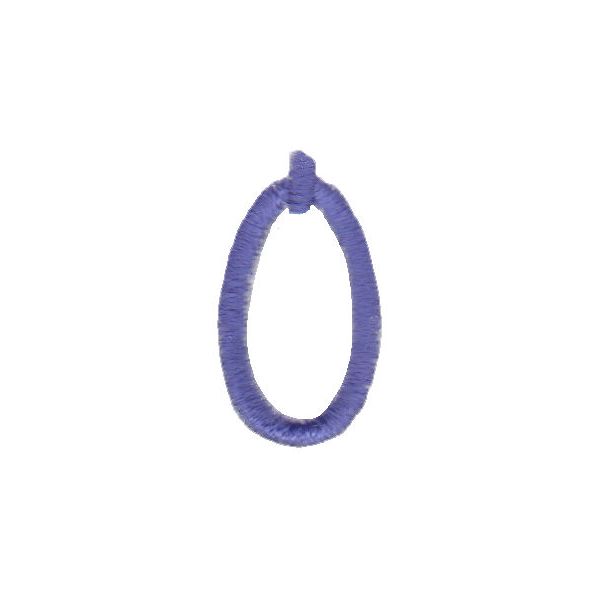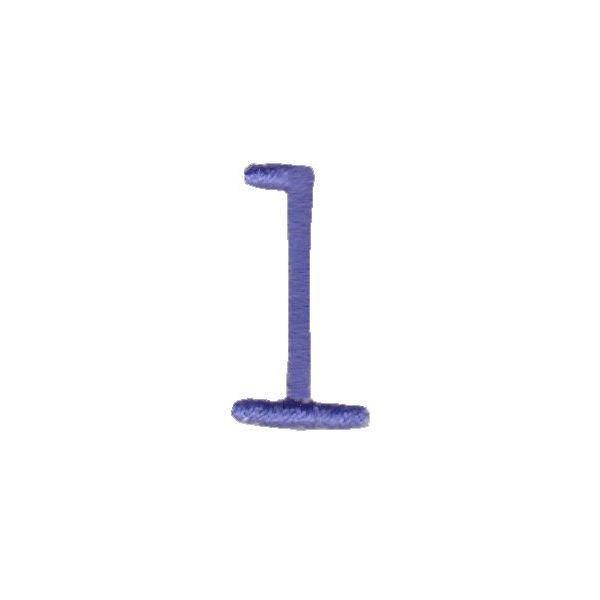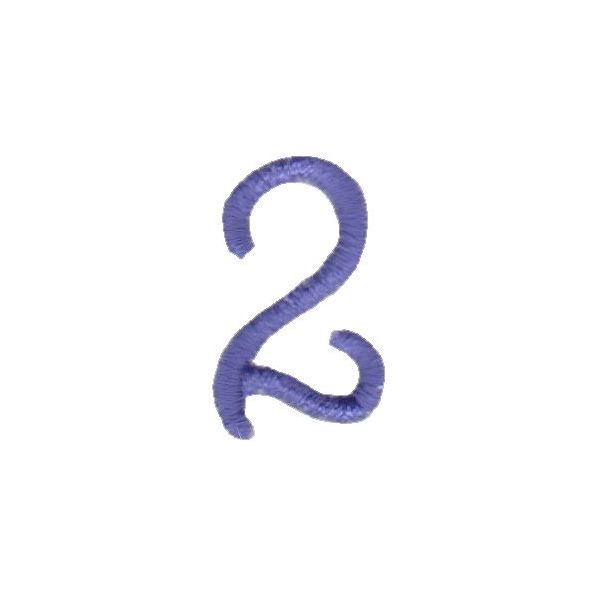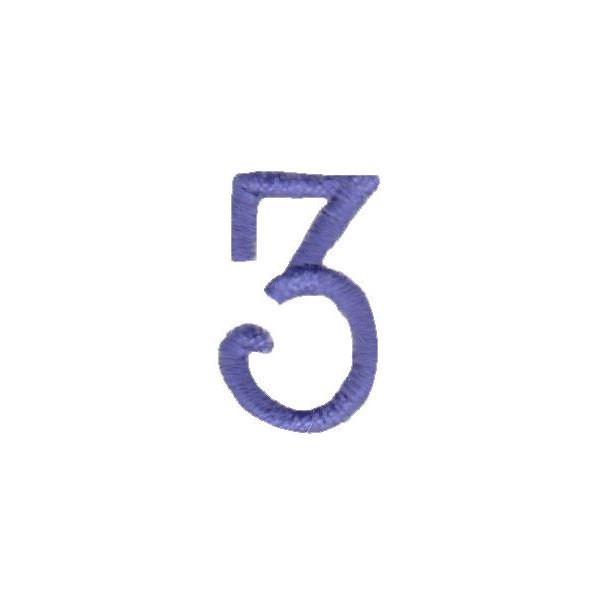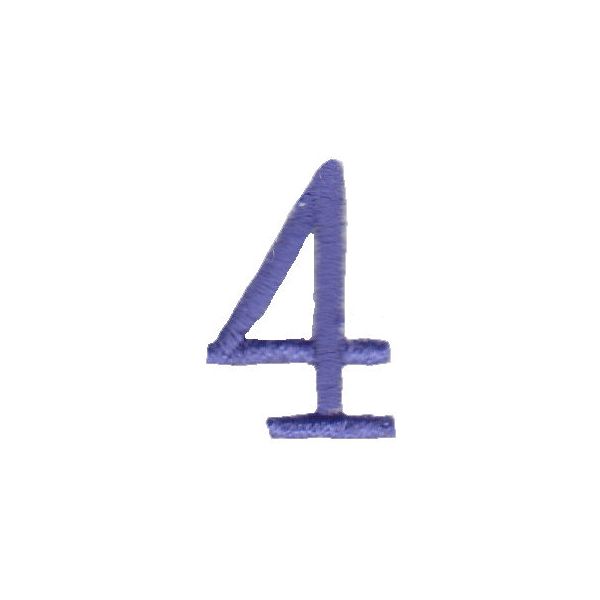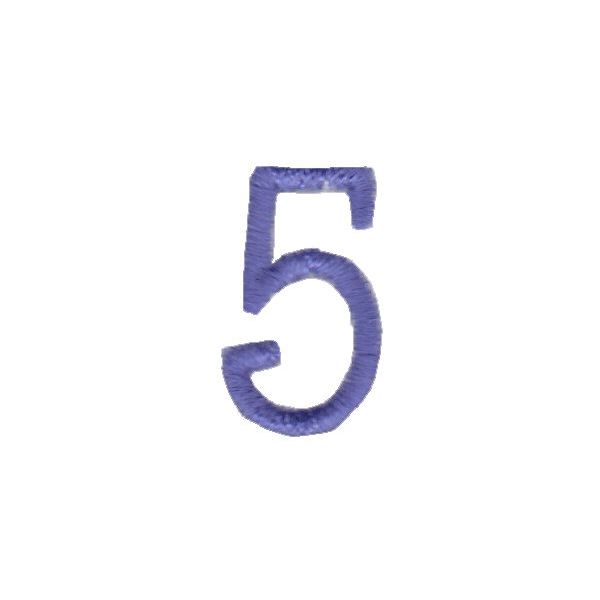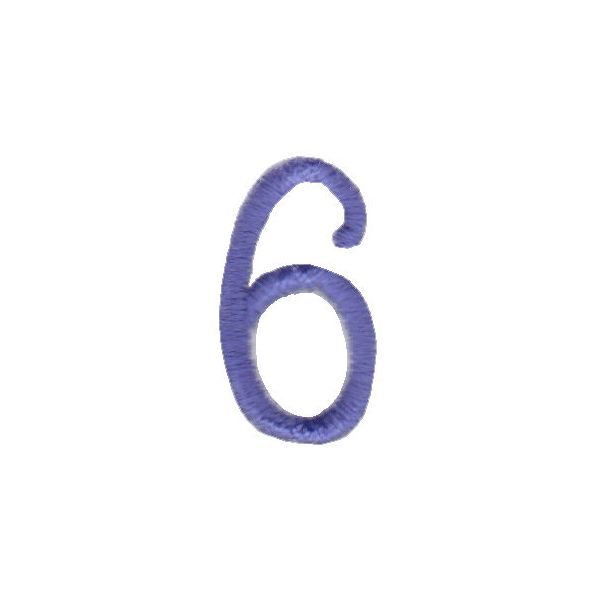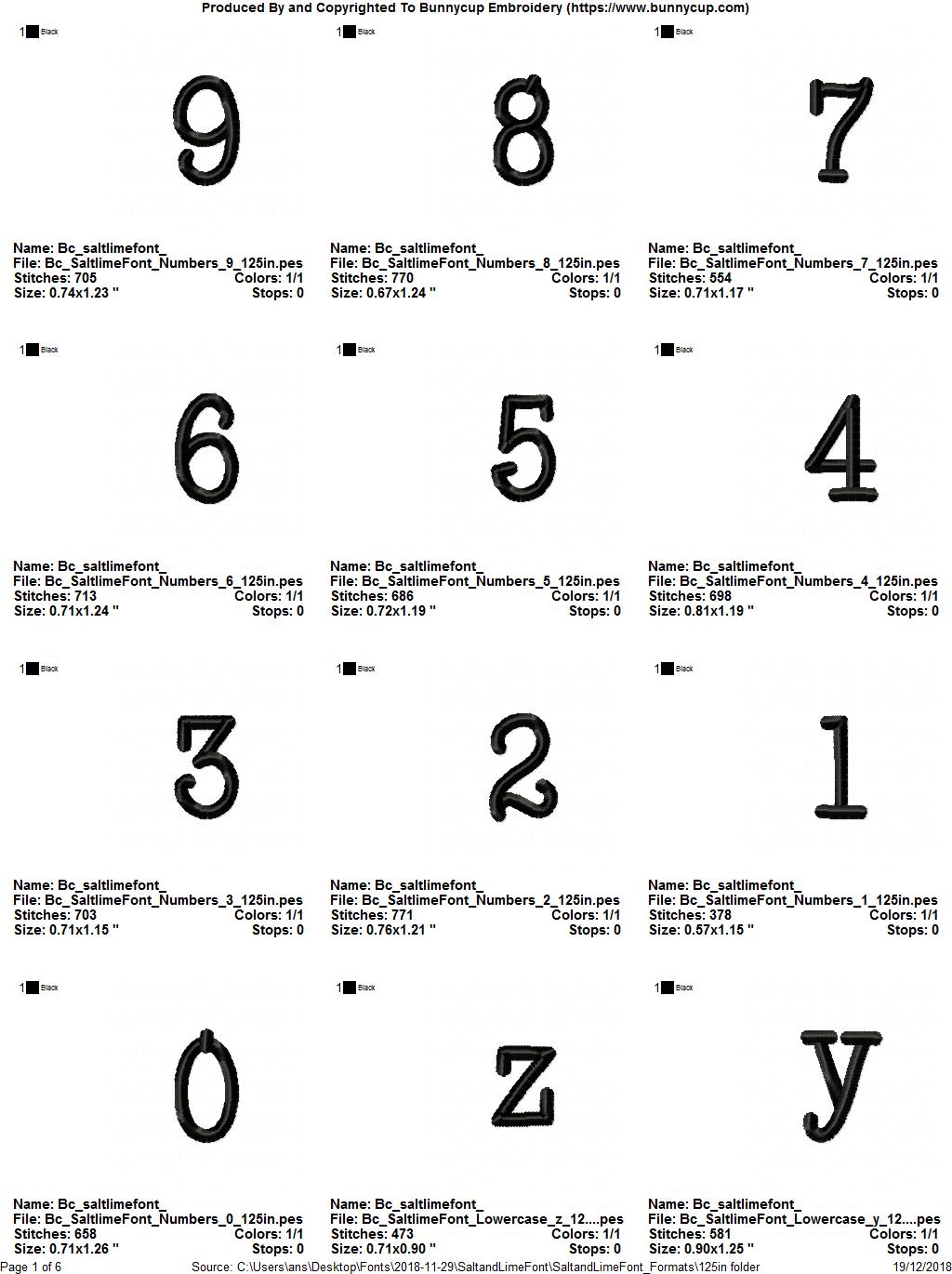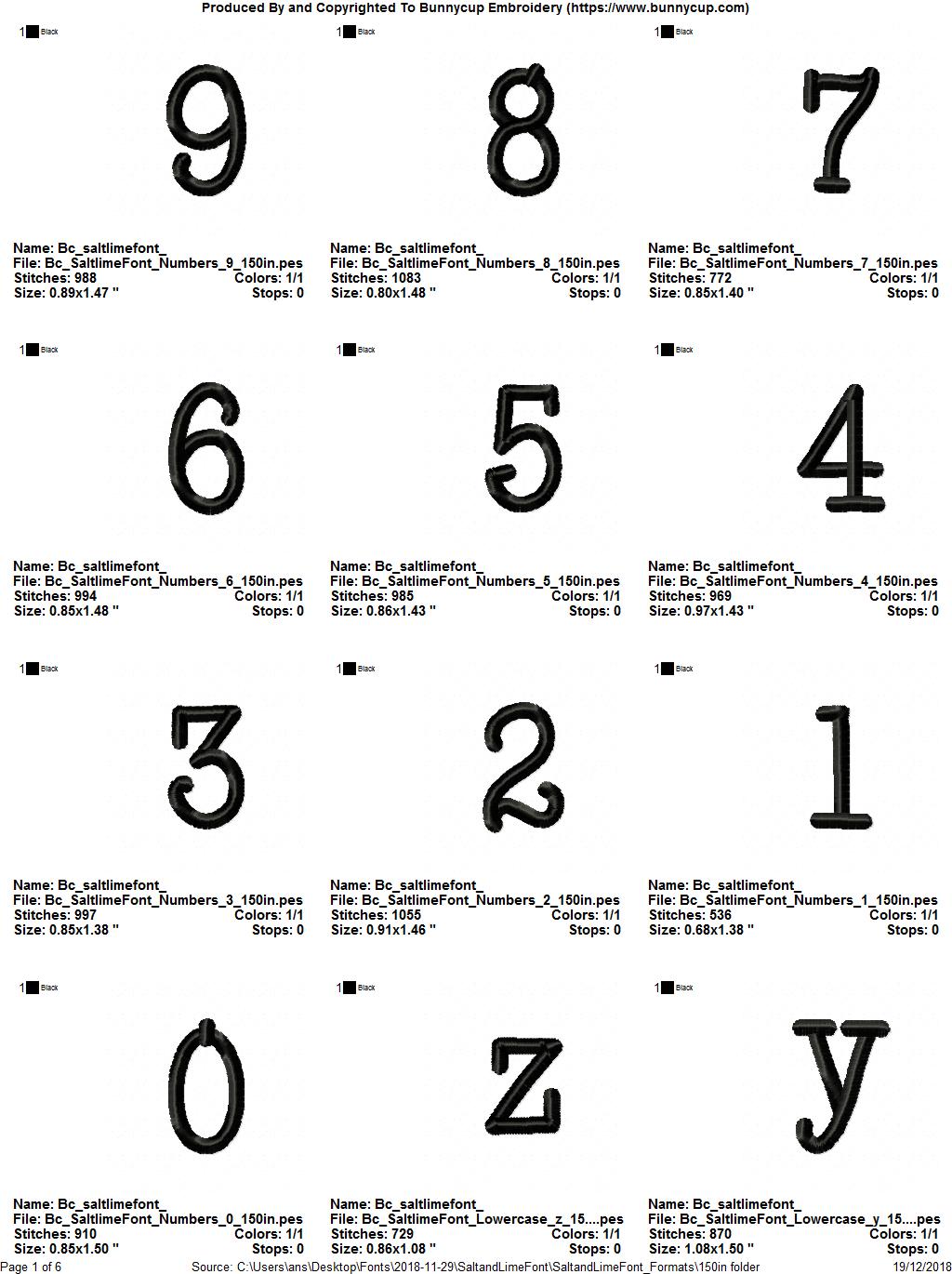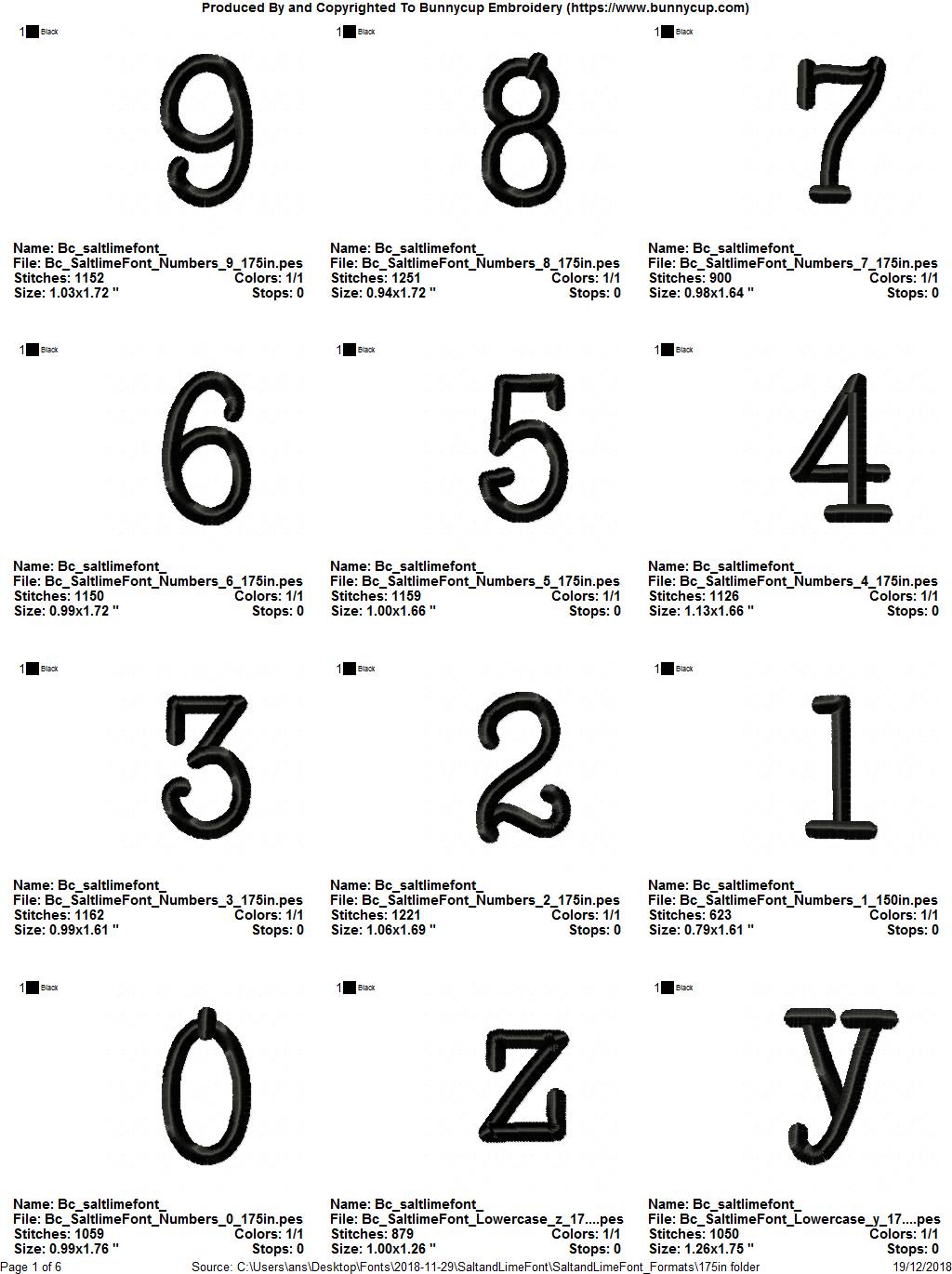
Salt and Lime Font
Salt and Lime Embroidery Font is a tidy typewriter style font great for all ages. This font includes 5 great sizes - 1 Inch, 1.25 Inches, 1.5 Inches, 1.75 Inches and 2 Inches. The font includes Capitals, Lower Case and Numbers as displayed. BX files are also included for use with the Embrilliance software when purchasing the full alphabet set. Just choose your machine format, and the BX files will be included with your machine format files. See our full range of